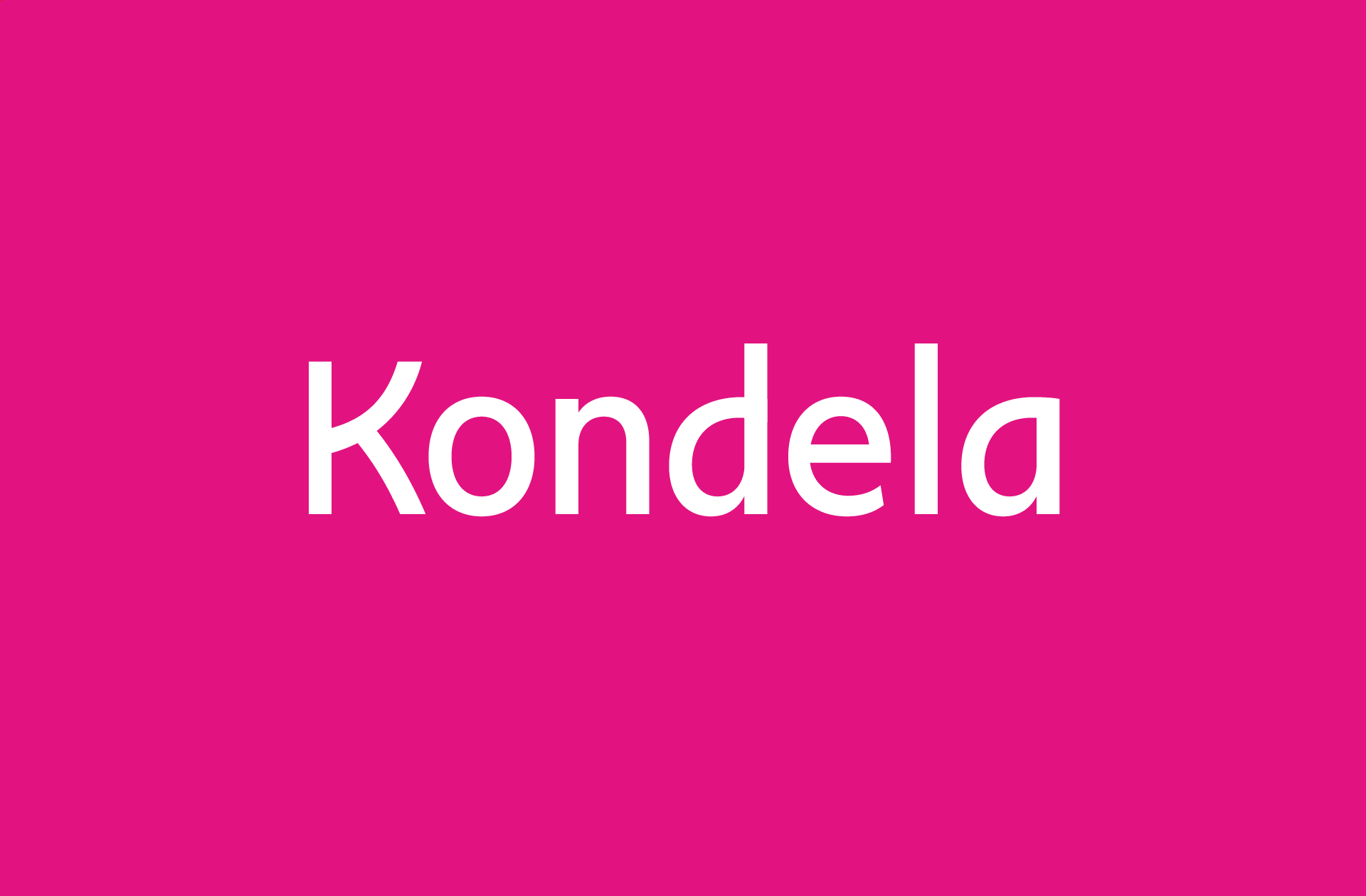
Kondela
Kondela Sans is a custom-made typeface designed specifically for use in the visual identity of the Slovak furniture retailer Kondela.
Kondela Sans is a dynamic, low-contrast sans-serif typeface in six weights and two variations — standard variant for normal text setting and the non-traditional connected variant inspired by Kondela’s script logo. Available through OpenType's Swash feature, this variant of Kondela Sans connects individual letters into harmonious, graphically appealing words.
Medium SwashesComfortable Shopping
Hair SwashesGarden & Hobbies
ThinHome Accessories
BoldSustainable Transport
RegularOriginal Gifts
Light SwashesFurniture Catalogue